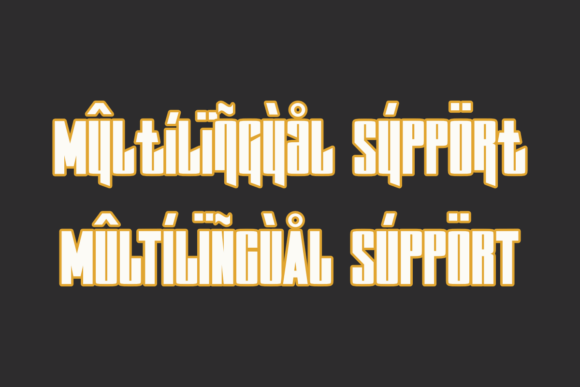
Unleash the Spook: Exercising Font – The Ultimate Halloween Display Font
As the spookiest season approaches, designers and crafters are on the lookout for the perfect font to bring haunted vibes to their creative projects. Look no further than Exercising Font, a bold and spooky Halloween display font that is sure to send chills down the spine. With its dramatic angles and chilling presence, Exercising Font is the ideal choice for anyone looking to create standout seasonal designs.
What is Exercising Font?
Exercising Font is a unique and eye-catching display font that has been specifically designed to capture the essence of Halloween. Its bold and dramatic angles evoke a sense of spookiness, making it perfect for a wide range of creative projects, from t-shirts and Halloween mugs to party invitations and trick-or-treat bags.
Key Features of Exercising Font
- Bold and Spooky Design: Exercising Font features a bold and dramatic design that is sure to grab attention.
- Dramatic Angles: The font’s dramatic angles add a touch of spookiness, making it perfect for Halloween-themed designs.
- Chilling Presence: Exercising Font has a chilling presence that is sure to bring haunted vibes to your creative projects.
- High-Quality Design: The font is designed with high-quality graphics, ensuring that it looks great in any design.
Who is Exercising Font Perfect for?
Exercising Font is perfect for a wide range of designers and crafters, including:
- Designers on Creative Fabrica: If you’re a designer looking for a unique font to add to your collection, Exercising Font is a great choice.
- Print-on-Demand Sellers: Exercising Font is perfect for print-on-demand sellers who want to create standout seasonal designs.
- Etsy Crafters: If you’re an Etsy crafter looking for a font to use in your Halloween designs, Exercising Font is a great option.
- Cricut or Sublimation Enthusiasts: Exercising Font is also perfect for Cricut or sublimation enthusiasts who want to create spooky and eye-catching designs.
Project Ideas Using Exercising Font
Exercising Font is a versatile font that can be used in a wide range of creative projects, including:
- T-Shirts: Create spooky and eye-catching t-shirts using Exercising Font.
- Halloween Mugs: Add a touch of spookiness to your Halloween mugs with Exercising Font.
- Party Invitations: Create spooky and inviting party invitations using Exercising Font.
- Trick-or-Treat Bags: Add a touch of spookiness to your trick-or-treat bags with Exercising Font.
- Posters: Create eye-catching posters using Exercising Font.
- Spooky Stickers: Create spooky and eye-catching stickers using Exercising Font.
- Creepy Sublimation Prints: Exercising Font is also perfect for creating creepy sublimation prints.
Tips for Using Exercising Font
Here are some tips for using Exercising Font in your designs:
- Experiment with Different Colors: Exercising Font looks great in a wide range of colors, so don’t be afraid to experiment.
- Use it with Other Fonts: Exercising Font can be paired with other fonts to create a unique and eye-catching design.
- Add Graphics and Images: Adding graphics and images to your design can help to enhance the overall look of Exercising Font.
- Keep it Simple: While Exercising Font is a bold and eye-catching font, it’s best to keep your design simple and easy to read.
Exercising Font is a bold and spooky Halloween display font that is perfect for designers and crafters looking to create standout seasonal designs. With its dramatic angles and chilling presence, Exercising Font is sure to bring haunted vibes to your creative projects. Whether you’re a designer on Creative Fabrica, a print-on-demand seller, an Etsy crafter, or a Cricut or sublimation enthusiast, Exercising Font is a great choice for anyone looking to create spooky and eye-catching designs.